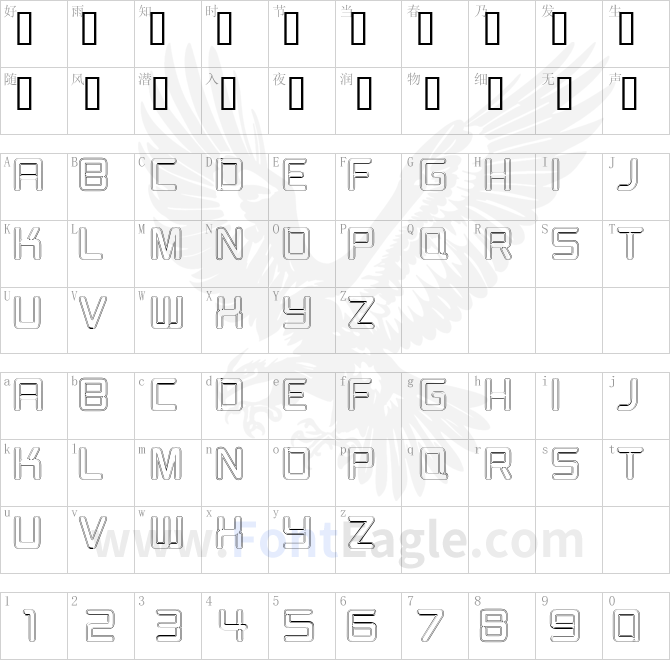
- Font name:Burger Joint Neon Contour JL
- Font Subfamily ID:Burger Joint Neon Contour JL
- Font Full Name:Burger Joint Neon Contour JL
- Postscript:BurgerJointNeon Contour JL